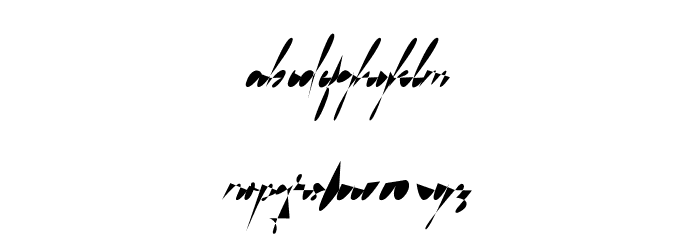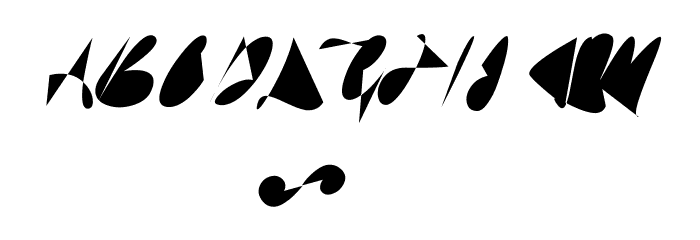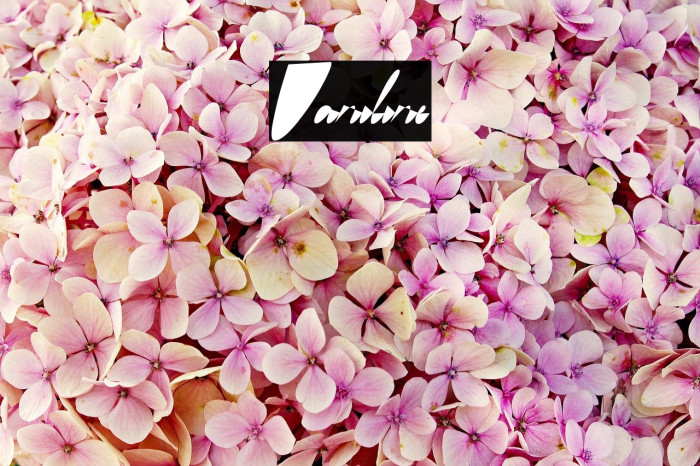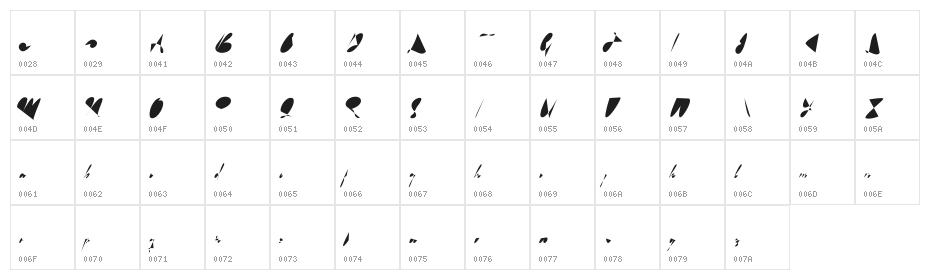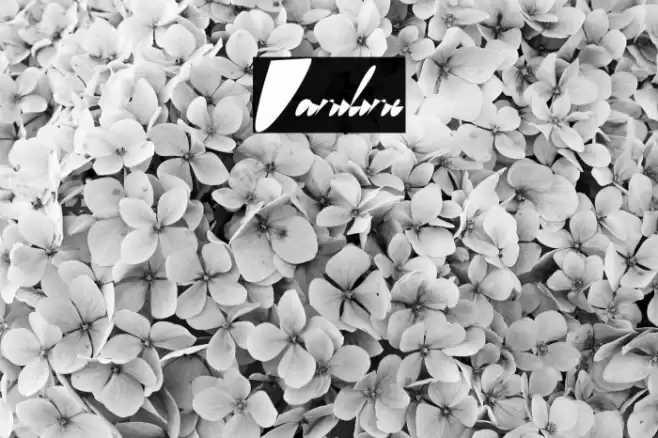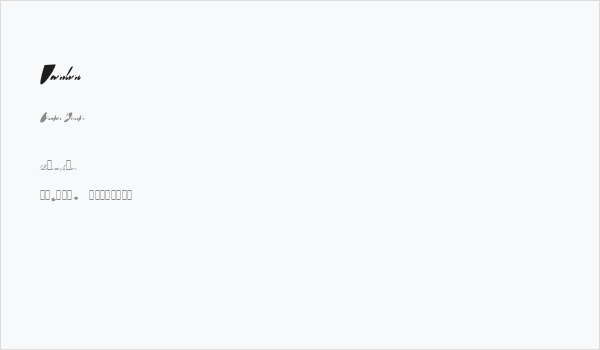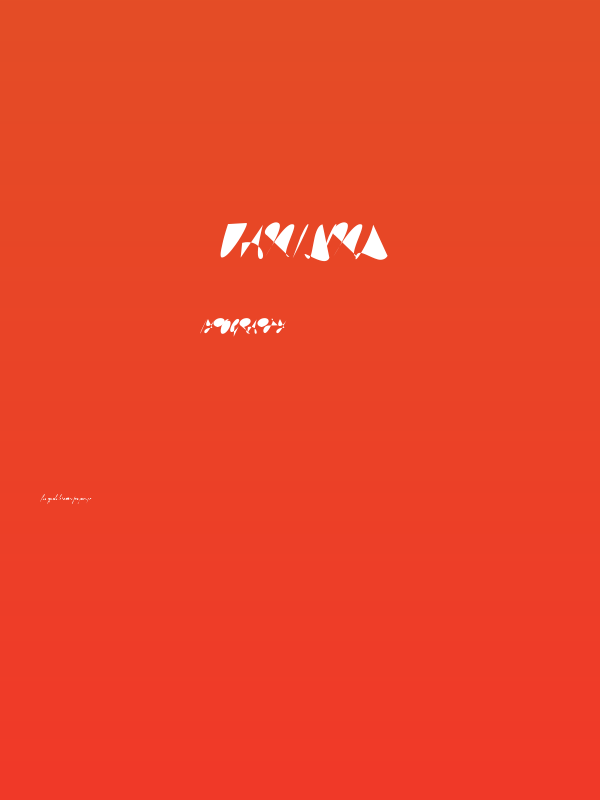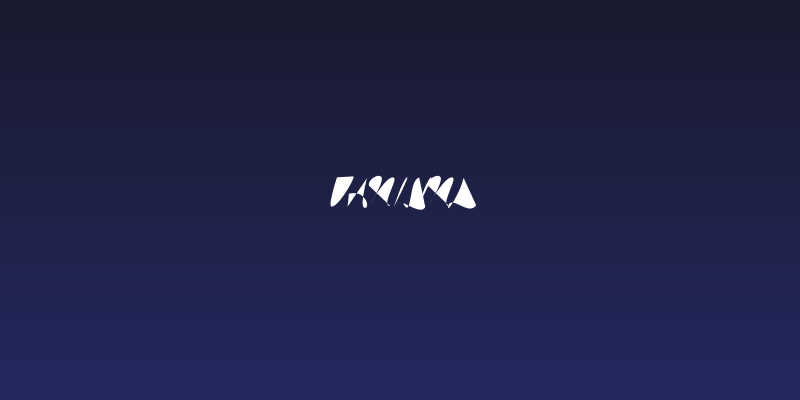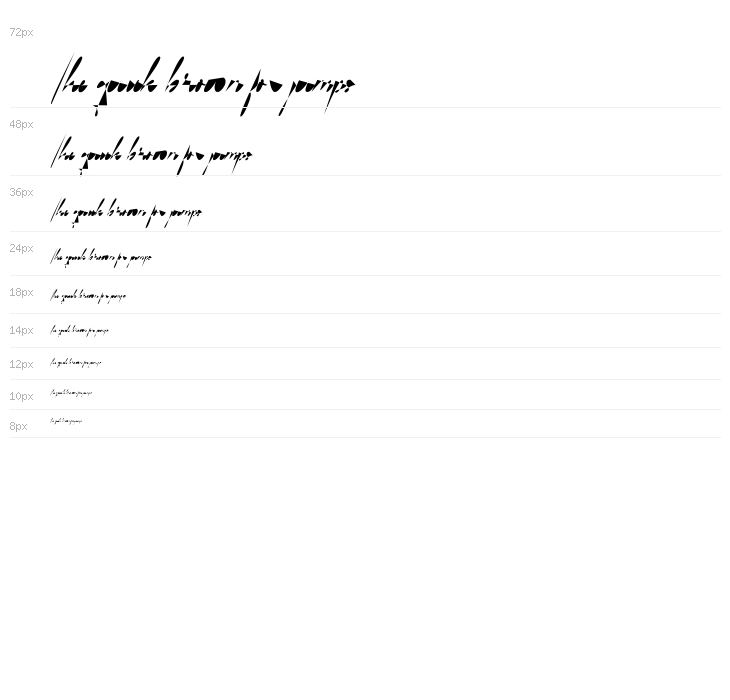
Vaniline Font
This font features a highly stylized and abstract design, characterized by bold, sweeping strokes and a dynamic, flowing appearance. The uppercase letters are particularly striking, with exaggerated curves and sharp angles that create a sense of movement and energy. The lowercase letters maintain this fluidity, though they are slightly more restrained, offering a balance between readability and artistic expression. The numbers and special characters follow the same design principles, ensuring consistency across the entire character set. This font's unique style makes it ideal for creative projects that require a bold visual statement.
A bold, abstract font with sweeping strokes and dynamic curves.